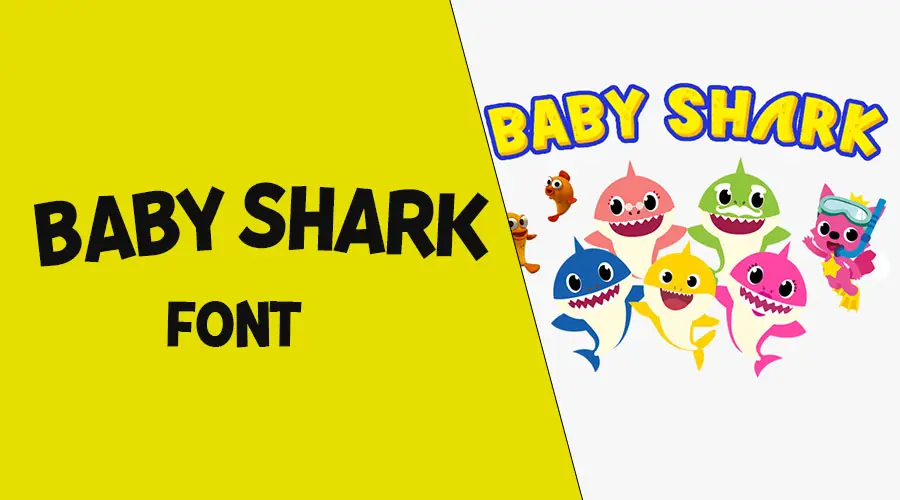
You might have watched the Baby Shark video song while surfing YouTube. Have you heard about the Baby Shark font? If not, you will get to know about this fancy typeface from this article. Here we will talk about the font characteristics, history, applications, and other details. So, don’t skip and read till the end.
What is Baby Shark Font?
Baby Shark font is a stylish and colorful font based on the Baby Shark musical cartoon logo lettering and background. Through our research, we discovered 2 fonts that resemble the logo font.
First there is the Kurri Island Personal Black font developed by Mans Greback in 2020 that looks similar to Baby Shark Font. Although the letter ‘A’ looks like a shark fin, it is not in the character set. According to our observations, this font is very similar to Pinkfong’s “Baby Shark” logo. Check the image for comparison.
The second font is the Shark Party font created by Spoonflower, which is not as similar, yet most other font sites describe it as comparable. As a result, we also count this font as similar. But in reality it’s a very different font which fits some of the shows’ inside lettering. However, it is not the same as the logo lettering. Check the image below for comparison.
Typical Uses for This Font
Baby Shark font is a font tailored for kids, so it will be the best font for designing kids’ products. You can use this font for designing kids’ bags, water bottles, mugs, notebooks, t-shirts, and other children-related accessories.
Other than these, you can use this colorful font in vast design projects, like product packaging, posters, website, brochures, stationery, logos, book covers, computer games, fabric printing, etc.
If there is any other fancy design project in your hand, be it for kids or adults, use this amazing font to add a variety.
About Baby Shark Song
Originally, Baby Shark is the name of an old children’s song from the 1900s. US Kids used to sing it in their school playgrounds and summer camp. It depicts how a terrified swimmer was eaten by sharks.
The 1900s version was so popular that it was recreated in many versions and languages. However, Pinkfong’s (South Korean education company) adaptation of the Baby Shark tune became a history.
They released a video song named Baby Shark dance in 2016. Soon, it became viral on various platforms. In 2021, the Baby Shark dance had ranked in YouTube’s top 40 most viewed videos with over 8 billion views.
To Sum Up
Though the Baby Shark font is a comic font, it does not mean that it won’t match with other creative designs except for kids’. This font can add a touch of elegance in your design. And the cute little colorful images can make your design light and funny. Just make sure that while using this font, don’t scale it too big or too short.